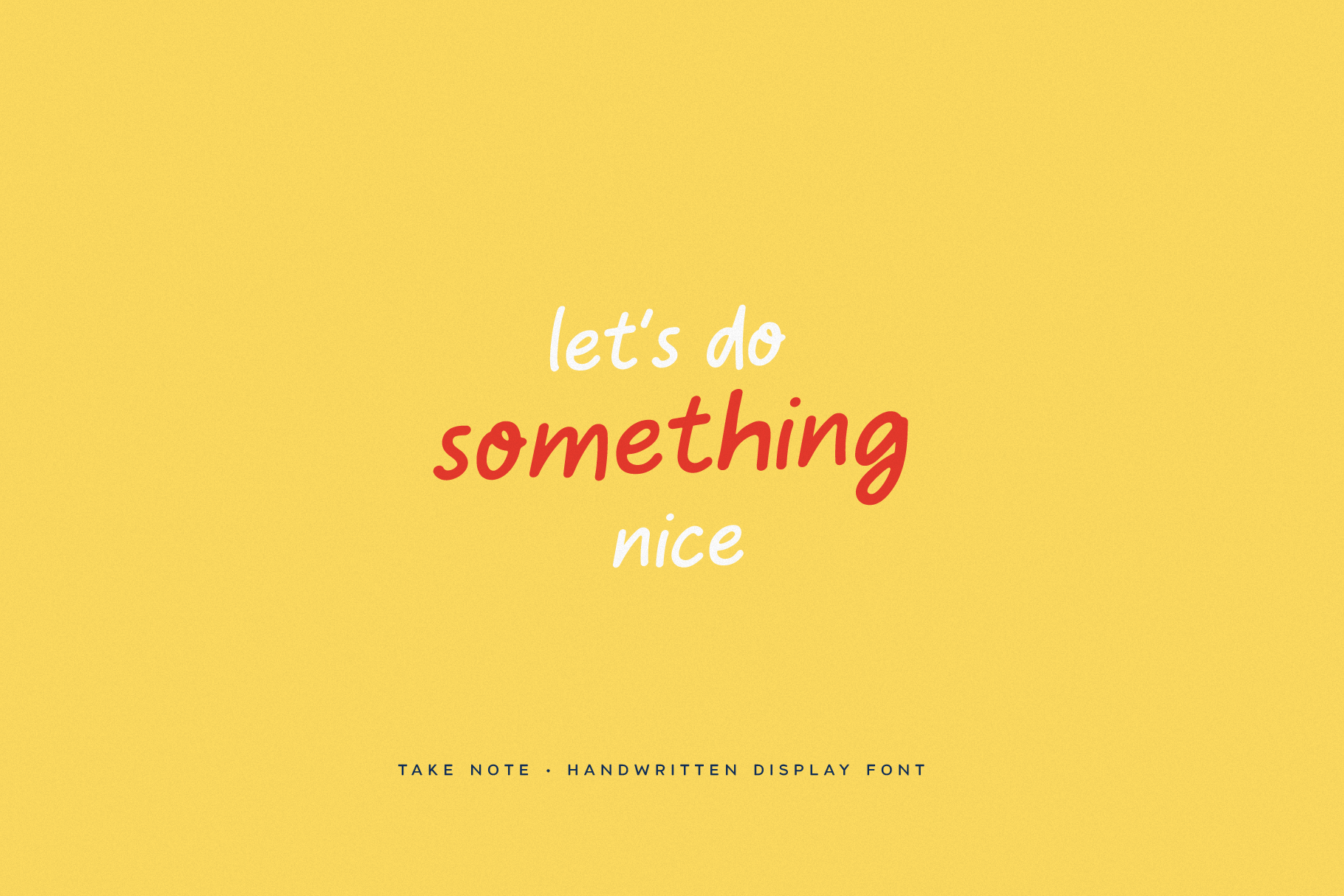
Take Note Craft Handwritten Display
Introducing Take Note, a beautiful and playful handwritten font. Using ligatures and stylistic alternatives for a natural flow and feel.
A cute handwritten font for logotype, blog heading or even Instagram quotes.